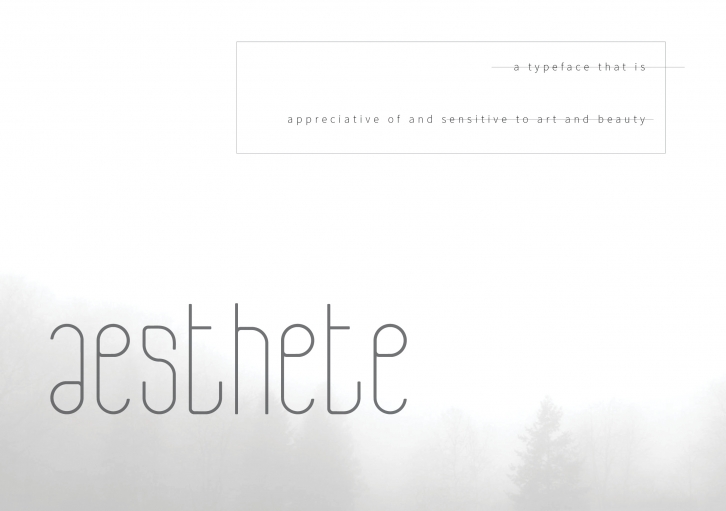
Aesthete, she is a delicate and calm soul, gentle and relaxed. She tells a story of organic origins, nostalgia. She is a friend to all, open and inviting, rejecting none. She was created out of a memory, a designer’s childhood writing style, a tall, thin and delicate body. She is at home when in nature, blends in with the soft curves of the leaves and trees, gentle branches bending down to greet you.
The type designer, Eran Waldeck, born 9 July 1997, is a student at the Greenside Design Center studying Graphic design. Many challenges were faced while designing Aesthete, first it was bold and abrupt which was not a reflection of her personality. Back to the drawing board it went to create a typeface inspired by the things she loved. In short time she had stumbled upon something nostalgic, a memory on paper. While starting to play with the letters, here and there, the finished forms were eventually in sight. Now, Aesthete is a reflection of her personality and who she wants to be.